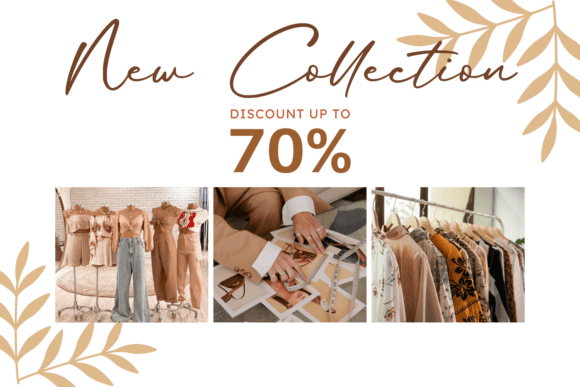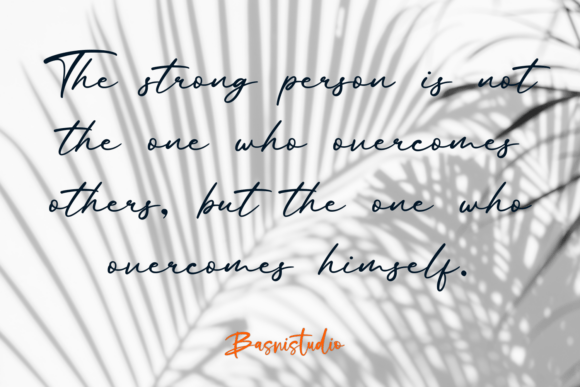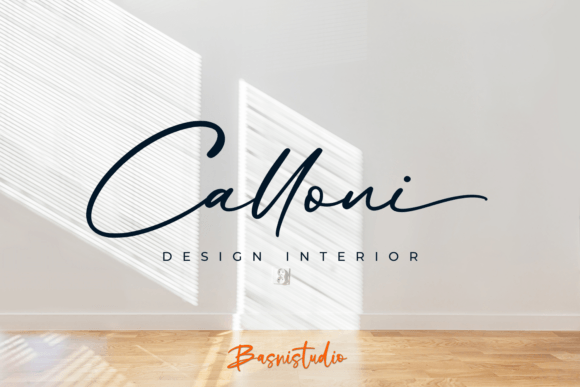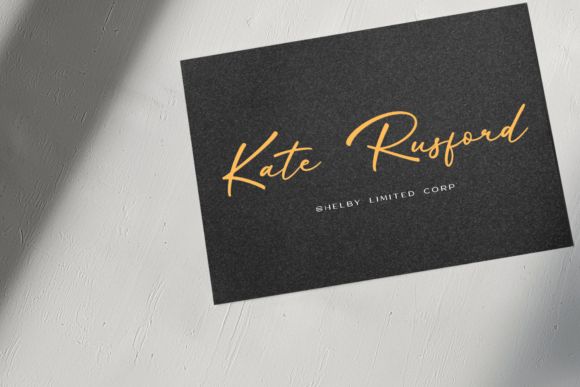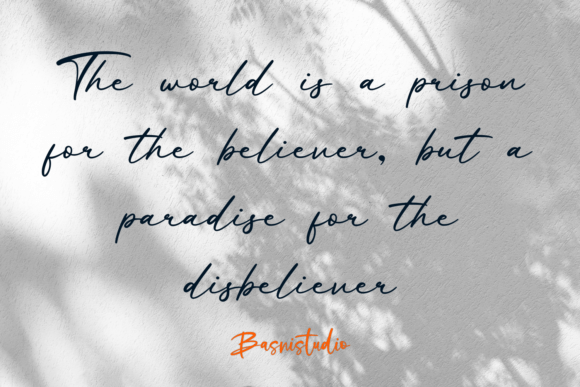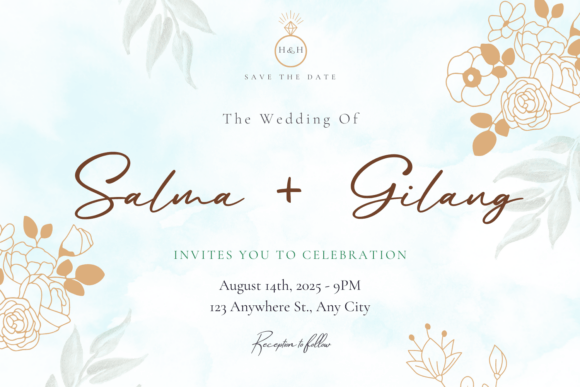
Dillema Font: The Perfect Handwritten Touch for Your Designs
Are you looking for a font that adds a personal and friendly touch to your designs? Look no further than Dillema Font! This beautiful handwritten font is perfect for notes, invitations, and creative projects. With its casual and natural look, Dillema Font is sure to make your designs stand out.
The Characteristics of Dillema Font
Dillema Font is a handwritten font with a smooth, flowing style that feels like real handwriting. Its letters are effortlessly connected, giving it a natural and organic look. The font has a casual feel that’s perfect for designs that need a personal touch. Whether you’re creating a note, invitation, or craft project, Dillema Font is the perfect choice.
What Makes Dillema Font So Special?
So, what sets Dillema Font apart from other fonts? Here are just a few things that make it special:
- Handwritten style: Dillema Font is a true handwritten font, with each letter carefully crafted to look like it was written by hand.
- Smooth and flowing: The font has a smooth, flowing style that’s perfect for designs that need a natural look.
- Casual and friendly: Dillema Font has a casual, friendly feel that’s perfect for notes, invitations, and craft projects.
- Perfect for creative projects: Whether you’re a designer, crafter, or DIY enthusiast, Dillema Font is the perfect choice for your creative projects.
Uses for Dillema Font
Dillema Font is a versatile font that can be used for a wide range of projects. Here are just a few ideas to get you started:
- Notes and letters: Add a personal touch to your notes and letters with Dillema Font.
- Invitations: Create beautiful, one-of-a-kind invitations for parties, weddings, and other special events.
- Craft projects: Use Dillema Font to add a personal touch to your craft projects, such as scrapbooking, card making, and DIY gifts.
- Design projects: Add a friendly, approachable feel to your design projects, such as brochures, flyers, and posters.
Tips for Using Dillema Font
Here are a few tips for using Dillema Font in your designs:
- Keep it simple: Dillema Font is a beautiful font, but it can get busy quickly. Keep your design simple and clean to let the font shine.
- Experiment with colors: Dillema Font looks great in a variety of colors. Experiment with different colors to find the perfect look for your design.
- Mix and match: Don’t be afraid to mix and match Dillema Font with other fonts. It’s a great way to add visual interest to your design.
| Font Name | Dillema Font |
| Author | bee.genin |
Dillema Font is a beautiful handwritten font that’s perfect for designers, crafters, and DIY enthusiasts. With its smooth, flowing style and casual, friendly feel, it’s the perfect choice for notes, invitations, and creative projects. Whether you’re looking to add a personal touch to your designs or create something truly unique, Dillema Font is the perfect choice.